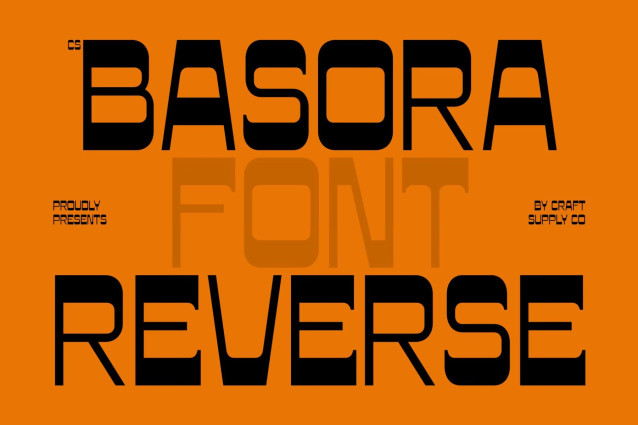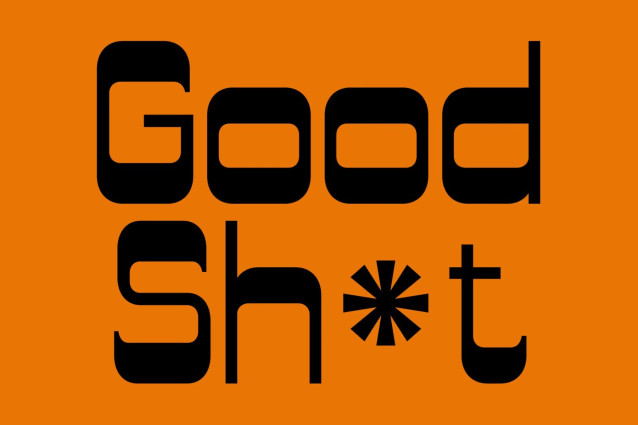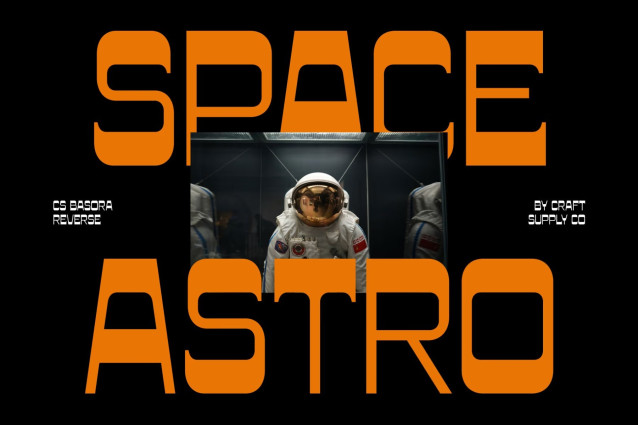
CS Basora – Reverse Contrast Font
CS Basora – Reverse Contrast Display Sans: Where Retro Energy Meets Modern Boldness
1980s-Inspired Character with Contemporary Clarity
This is a bold display sans featuring striking reverse contrast that captures the spirited energy of 1980s graphic design while maintaining a clean, modern edge. With thicker horizontal strokes and slimmer verticals, its unconventional construction creates a distinctive visual rhythm that feels nostalgic yet refreshingly contemporary.
Bold Structure with Dynamic Personality
This font delivers exceptional visual impact without compromising clarity. Its reverse contrast styling introduces a lively retro character, while its clean sans serif foundation keeps the overall appearance polished and versatile. This combination makes the font expressive enough for creative projects while remaining highly legible and effective.